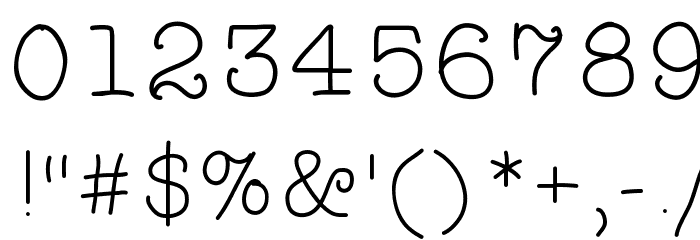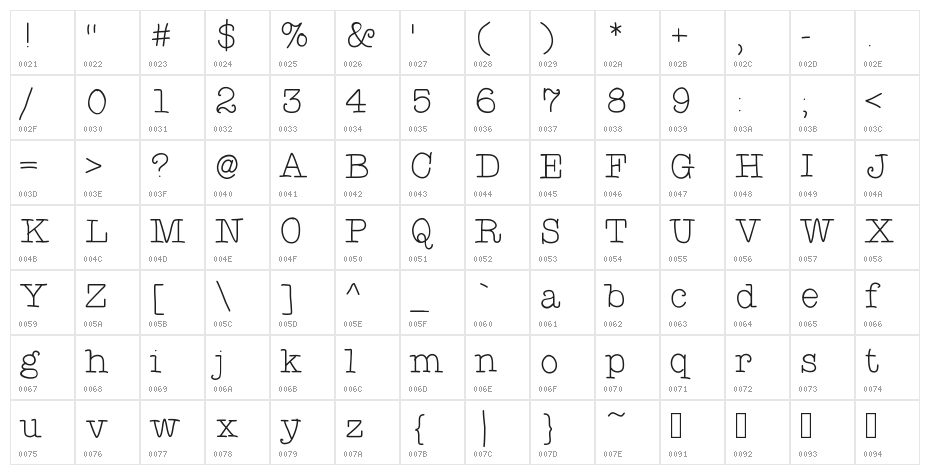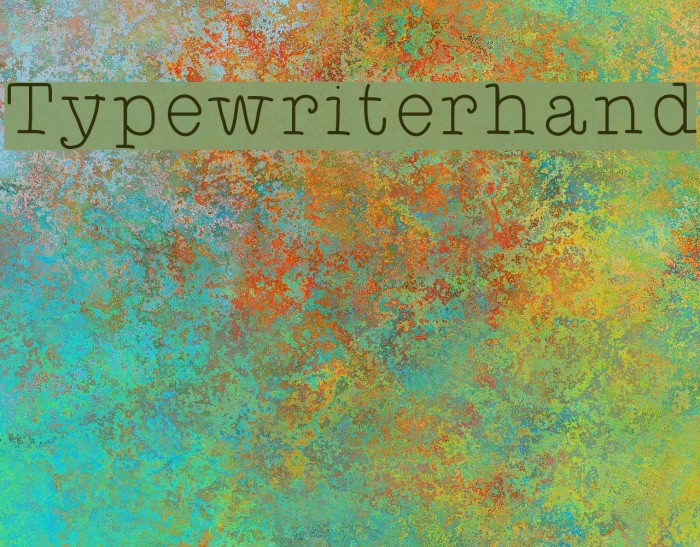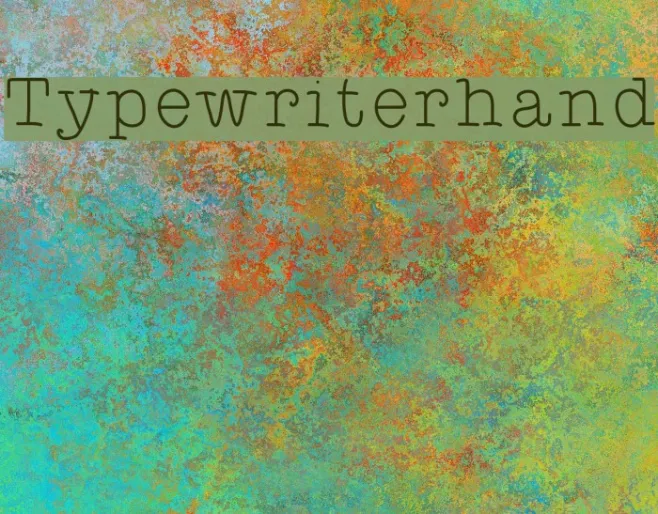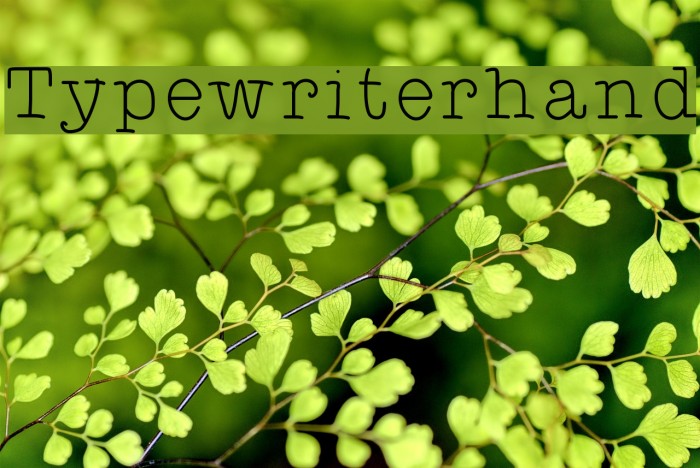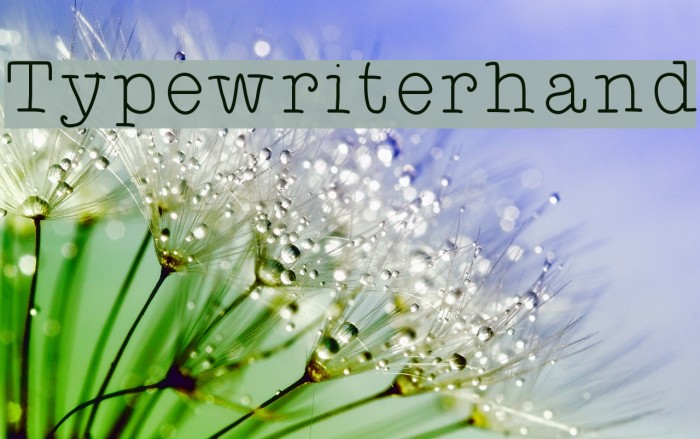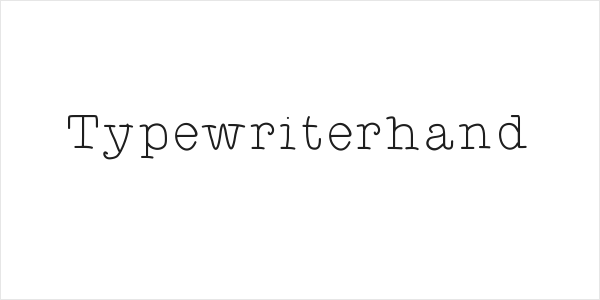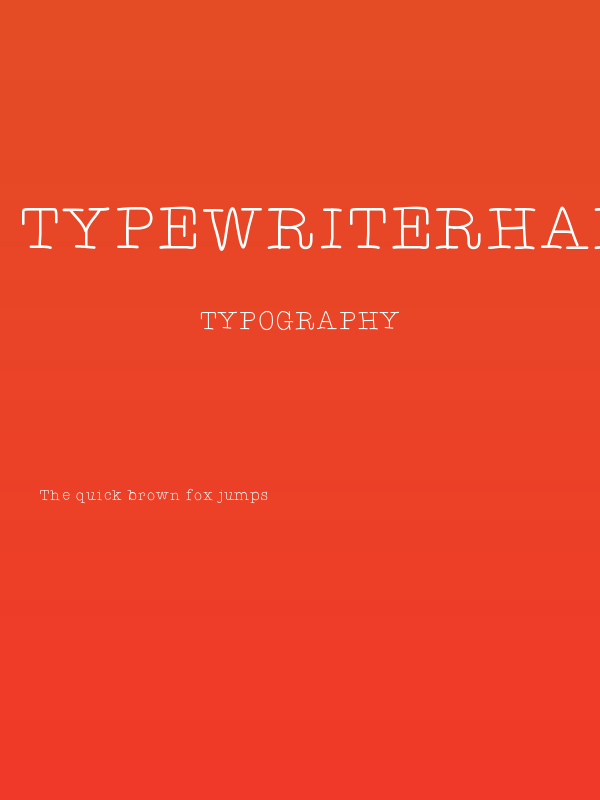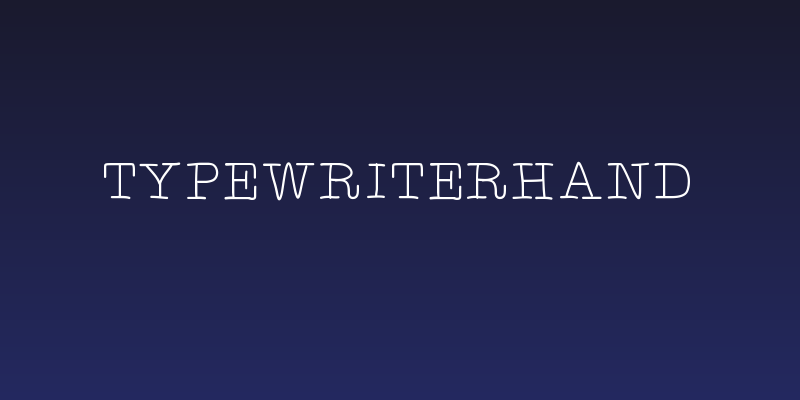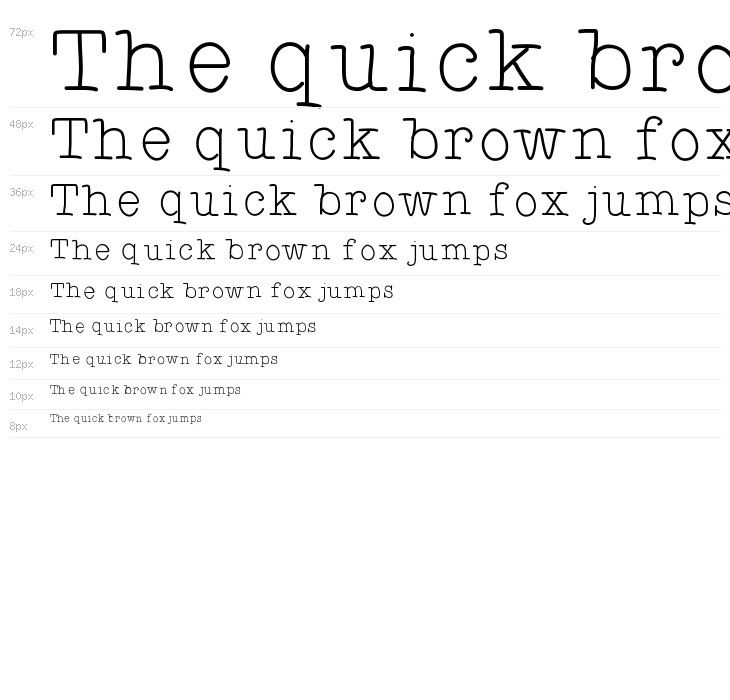
Typewriterhand Font
Typewriterhand Description
This font captures the nostalgic essence of vintage typewriters with its monospaced, mechanical appearance. Each character is distinct, featuring rounded edges and a slight irregularity that mimics the imperfections of typewritten text. The uppercase letters are bold and prominent, while the lowercase letters maintain a consistent height, enhancing readability. Numbers and special characters are designed with clarity, making them easily distinguishable. The font's overall aesthetic is both functional and charming, evoking a sense of history and craftsmanship.
| Proposed Projects | Ideal for projects that require a retro or nostalgic feel, such as vintage-themed posters, typewriter-style documents, or creative writing pieces. |